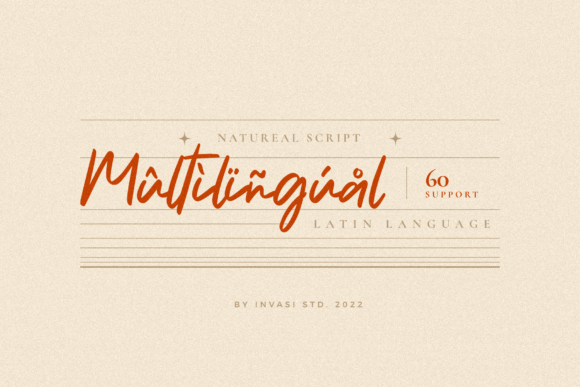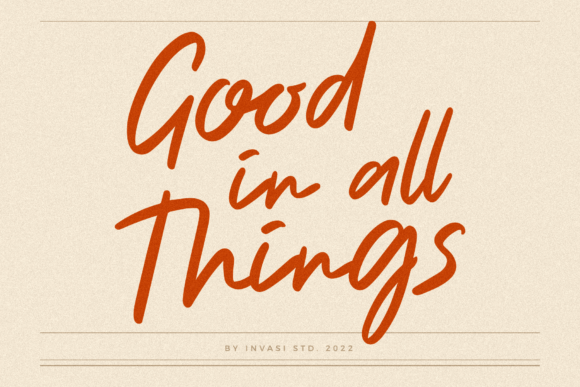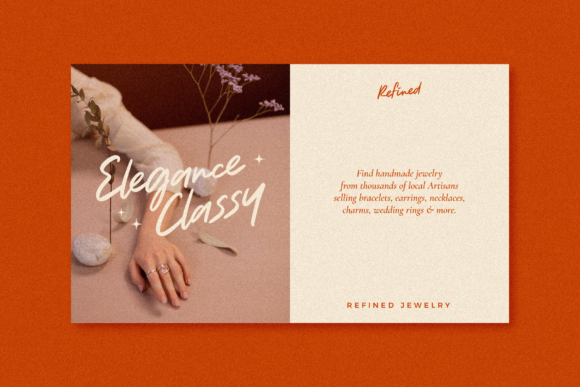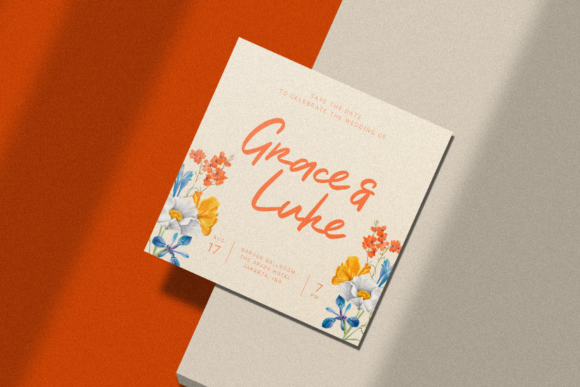
About Natureal Script Font
Natureal Script is a unique and elegant handwritten font. It looks beautiful on a variety of designs requiring a personalized style, such as wedding invitations, thank you cards, weddings, greeting cards, logos and so on.